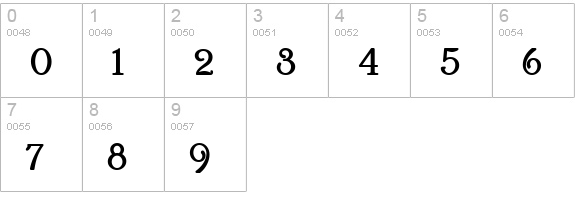
McKenna Handletter NF Bold is a strong, high-contrast variant in the McKenna typeface family \xE2\x80\x94 well suited to headlines, attention-grabbing titles, and strong calls-to-action.
McKenna Handletter NF Bold font is a striking and versatile typeface that commands attention with its bold and dynamic letterforms. Designed with a hand-lettered look, this font exudes a sense of creativity and individuality, making it perfect for a wide range of design projects. Whether you're creating eye-catching headlines, posters, invitations, or branding materials, McKenna Handletter NF Bold font is sure to make a bold statement. The best part? This exceptional font is available for free download at FontsMarket.com, making it easily accessible for designers and creatives looking to elevate their projects with a touch of unique style. Don't miss out on the opportunity to add McKenna Handletter NF Bold font to your font collection and unleash your creativity today!